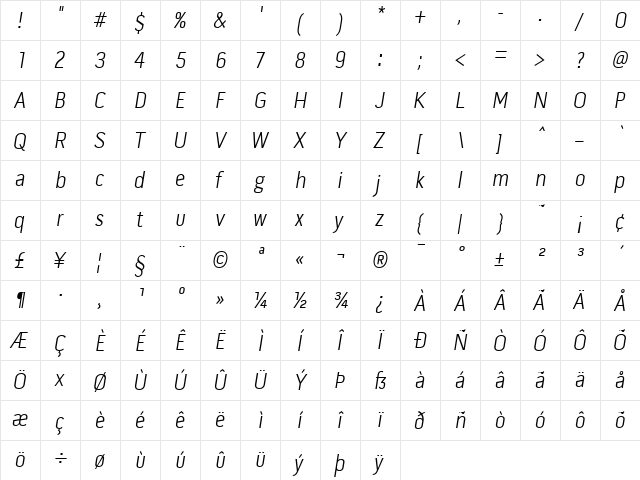
Pill Gothic 300mg Light Obq
| Designer | Christian Robertson |
Design Context for Pill Gothic 300mg Typeface
Pill Gothic 300mg has the quiet confidence of well-executed sans-serif typography: versatile, unobtrusive, and dependable at any size. Its slender proportions lend an understated elegance to any composition.
A natural fit for high-end product packaging, luxury brand identities, and refined web typography.
Font Pairing: Pair Pill Gothic 300mg with a medium or bold serif for headlines — the weight contrast creates an elegant, high-end feel.
Pro Tip: Use Pill Gothic 300mg with generous tracking and line-height for the most luxurious effect — light sans-serifs reward spacious, considered layouts.